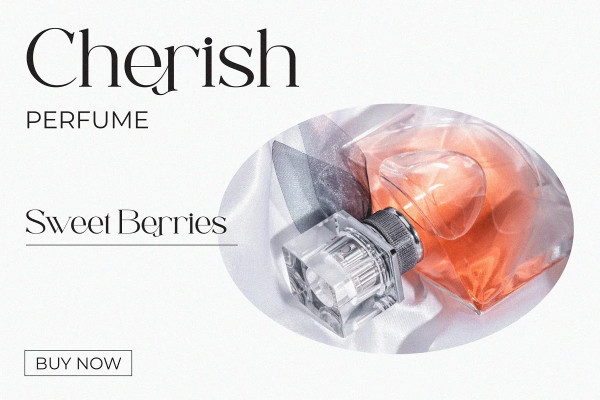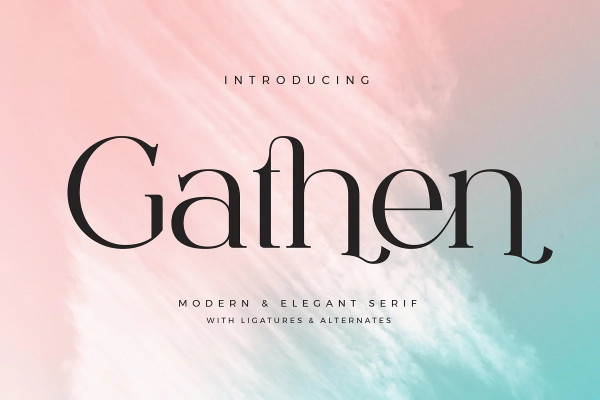
Gathen Font
Gathen Font – Stylish Ligature Typeface, inspired by the famous minimalist logo perfect for the purposes of designing templates, brochures, videos, advertising branding, logos and more.